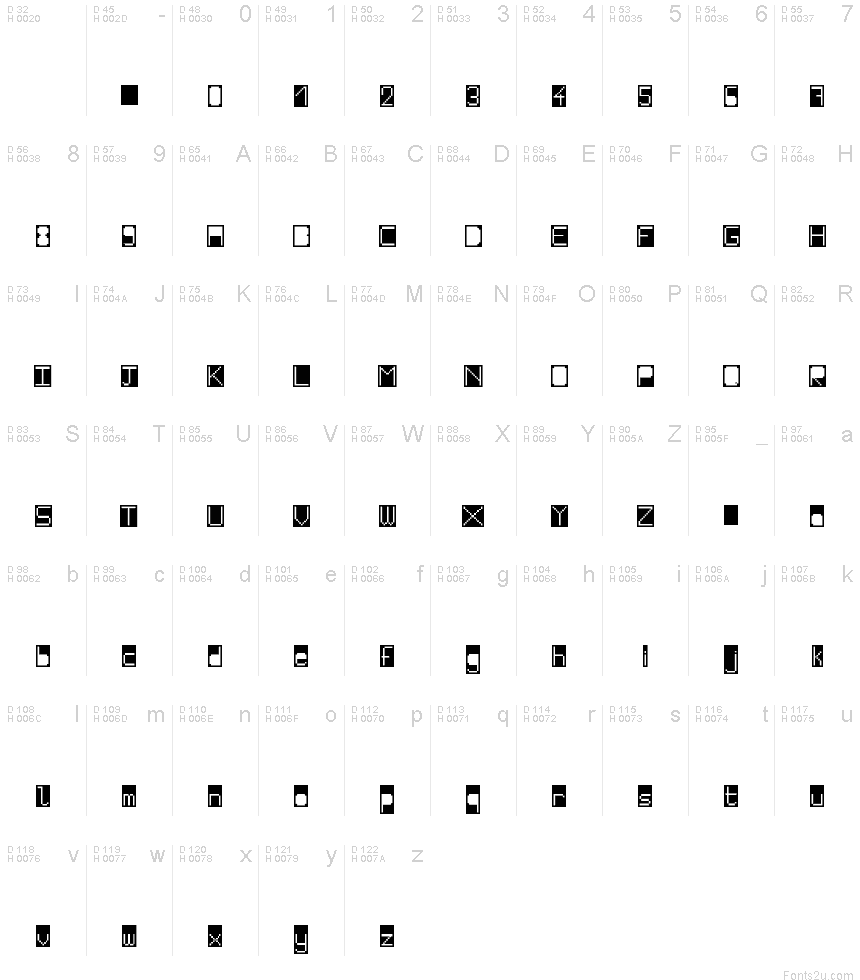
WLM Pixel Party Black Fill Regular Fuente
WLM Pixel Party Black Fill by Wolf Lambert is a free digital display font with tall, open lettering and a distinctly early-computer attitude. Its geometric forms mix squared silhouettes with playful departures, including clipped corners, rounded joins, and irregular widths that keep the alphabet from looking mechanical.
Digital graphics are its most natural setting, especially game menus and music visuals that benefit from the loose electronic styling. The unusual shapes can also turn event posters and merchandise into lively retro-tech pieces. In editorial design, it suits magazine openers about gaming, coding, or electronic culture.